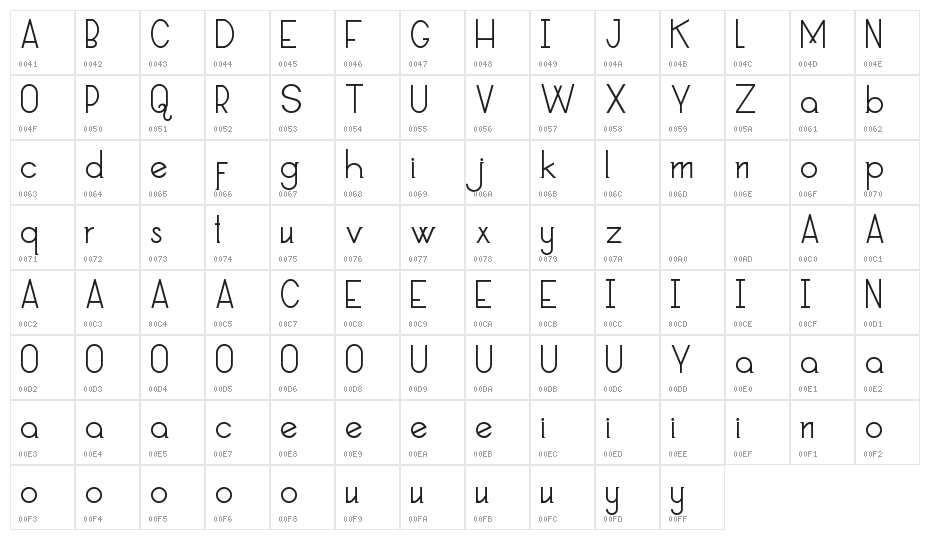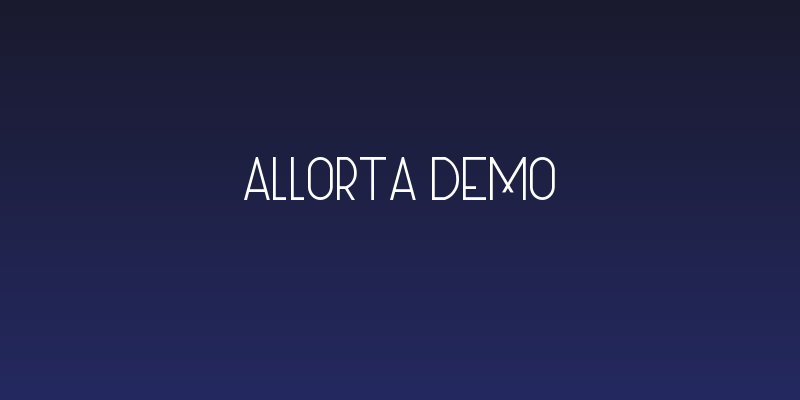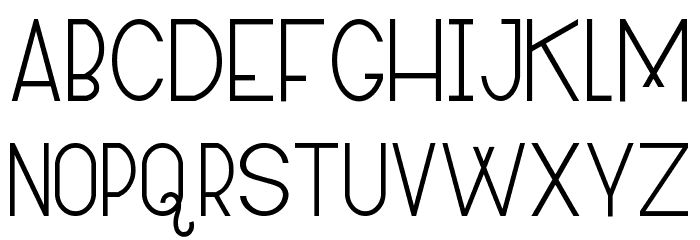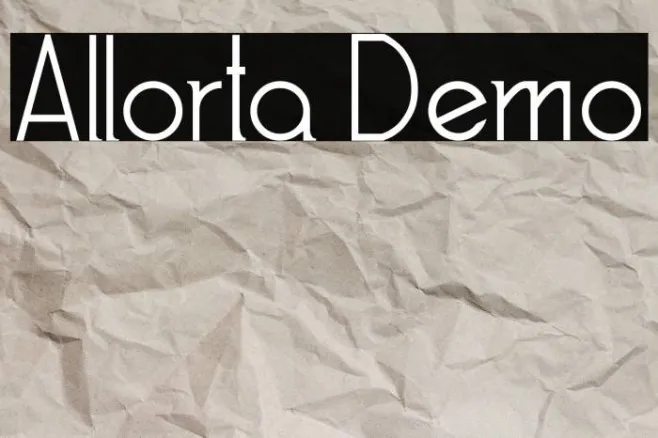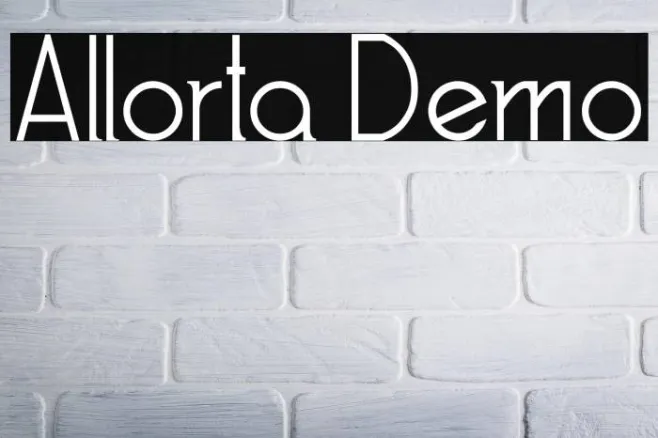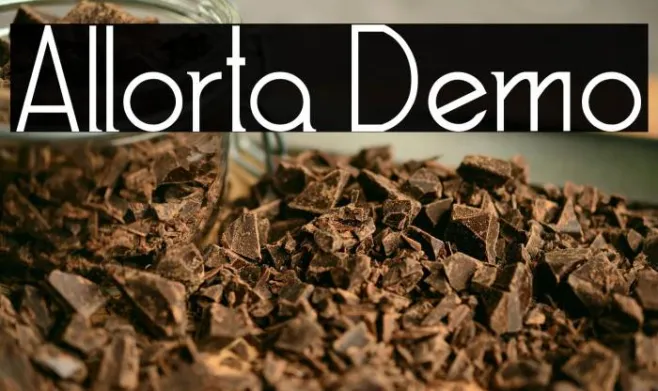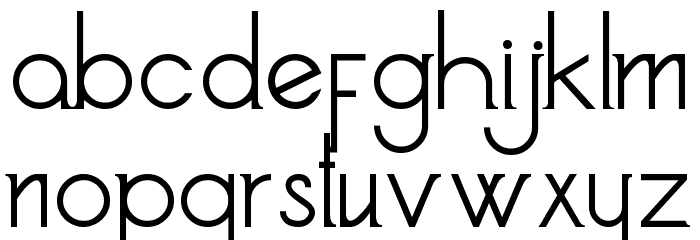
Allorta Demo Font
Allorta Demo Description
This font features a unique blend of modern and decorative elements, characterized by its clean lines and subtle curves. The uppercase letters are tall and narrow, with a slight flair on certain characters like 'Q' and 'R', adding a touch of elegance. The lowercase letters maintain a consistent height, with distinctive features such as the looped 'g' and the open 'a'. The numerals are straightforward, aligning well with the overall style. Special characters like '&' and '?' are designed with a creative twist, enhancing the font's decorative appeal. The font's design is both versatile and stylish, making it suitable for a variety of applications.